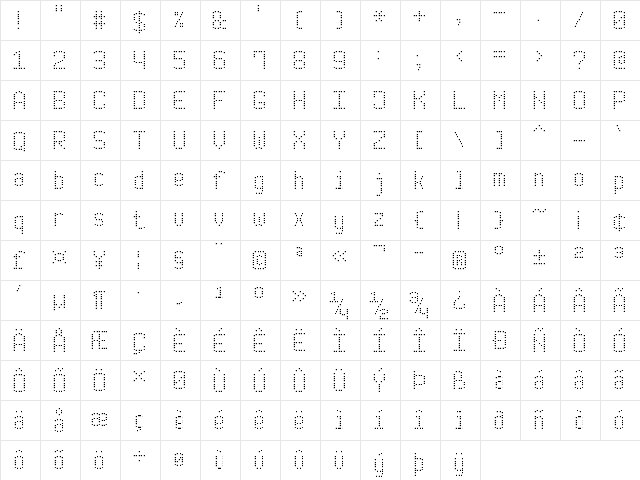
Modern Dot Digital-7 Regular Font Preview
Modern Dot Digital-7 Regular
Modern Dot Digital-7 Regular Font Details
| Foundry | Style-7 |
| Designer | Sizenko Alexander |
Design Context for Modern Dot Digital-7 Typeface
Modern Dot Digital-7 has a distinctly futuristic character, with geometric precision and clean angles that feel at home in technology, gaming, and sci-fi contexts.
Pro Tip: Use Modern Dot Digital-7 in combination with a neutral sans for body text. Let it define the brand voice in headlines while keeping reading comfortable elsewhere.